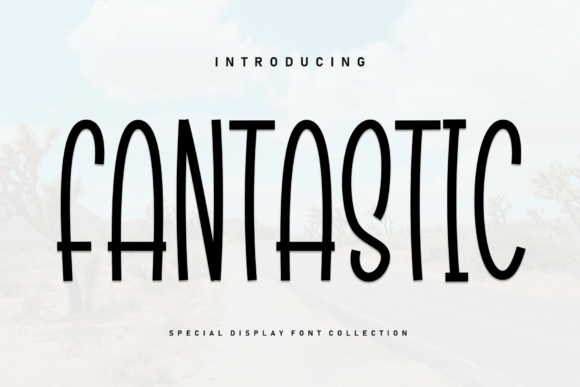
When a Font Speaks Volumes: Unleashing the Power of Fantastic Font
Have you ever stared at a blank canvas, wondering how to bring your creative vision to life? I know I have – many times. The spark of inspiration often strikes when we least expect it, and for me, it was a simple doodle on a coffee shop napkin. A careless scribble of a font caught my eye, and I knew I had stumbled upon something special. That’s when I discovered Fantastic Font, a handwritten display font that looks like it was drawn with a marker.
This fantastic font is more than just a pretty face – it’s a versatile tool designed to elevate your branding, logos, and marketing promotions. With its relaxed and sporty feel, Fantastic Font adds a touch of luxury and elegance to any design, making it perfect for wedding supplies, greeting cards, fashion, lookbooks, and more.
Fantastic Font Key Features
- Unique Character Set: Fantastic Font includes a unique set of characters, including ligatures, swashes, and ornaments, adding an extra layer of personality to any design.
- Font Style Variations: Fantastic Font comes in 5 distinct styles, including Regular, Bold, Italic, Bold Italic, and Outline, allowing designers to experiment with different looks and feels.
Designer Review: Fantastic Font
Overall, I have mixed feelings about the “Fantastic Font”. While it has some great qualities, it also has some limitations that might make it less suitable for certain projects.
- Unique and playful design: The font has a distinctive and eye-catching style that can add a lot of personality to a design.
- Good legibility: Despite its unconventional design, the font is still easy to read, especially at larger sizes.
- Works well for display text: The font is perfect for headings, titles, and other display text where you want to make a statement.
- Limited language support: The font only supports a limited number of languages, which can be a problem if you need to use it for a project that requires multiple languages.
- Not suitable for body text: The font is too ornate and distracting for use in body text, where readability is more important.
- May not be accessible: The font’s unique design might not be compatible with assistive technologies, which can make it difficult for users with disabilities to read.
While the “Fantastic Font” is a great choice for certain projects, it’s not a one-size-fits-all solution. It’s perfect for display text and adding a touch of whimsy to a design, but it’s not suitable for body text or projects that require multiple languages. With some careful consideration and planning, it can be a great addition to your design toolkit.